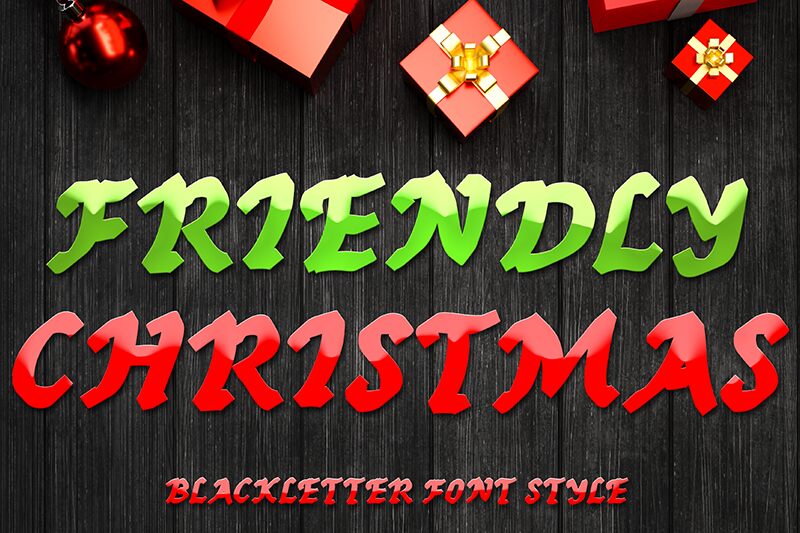
Friendly Christmas font by Yoga Letter unites festive, decorative forms in an ornamental style. With a rugged and bold presence and hints of Gothic influences, this holiday typeface conveys a historical feel with its traditional aesthetic. Each character combines a playful nature with a serious one to create gorgeous headlines and important poster titles. For additional ornamental units, users get to pick from a variety of items including swirled lines, twinkling shapes, and more.
A holiday presentation wouldn’t be complete without its festivity, so Friendly Christmas presents it through its impactful elements, sharing cheerful designs. Incorporate it in printed and digital productions using a free demo version and add it to invitation cards, packaging designs, postcards, book covers, and wall art, or use it for social media.